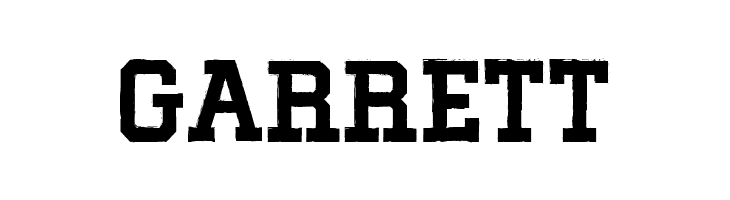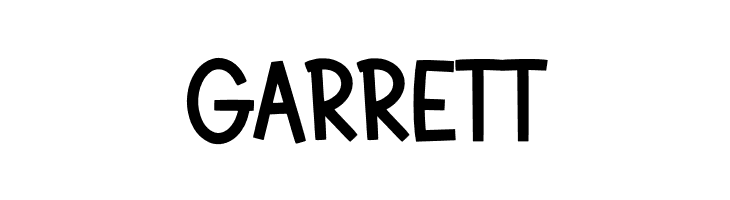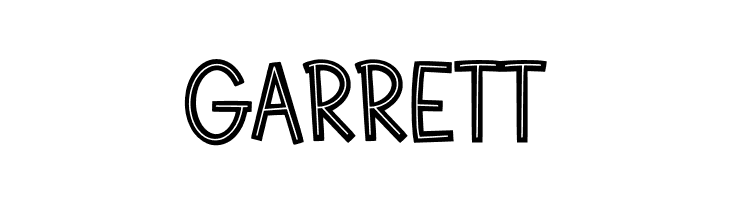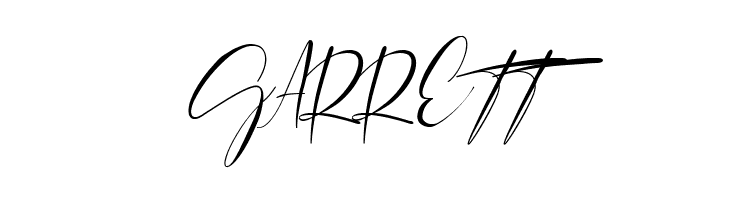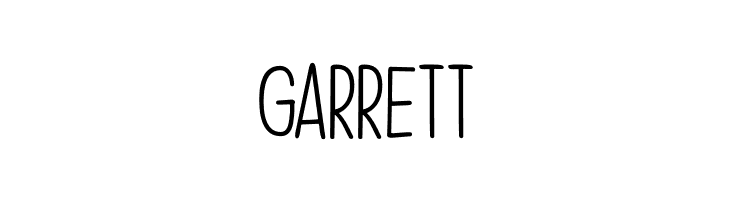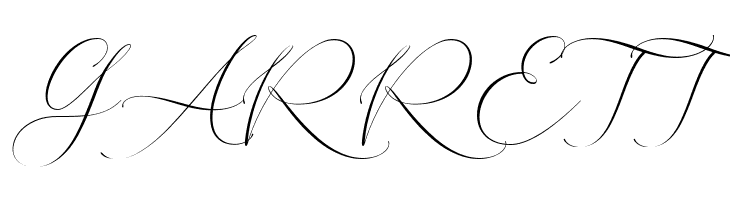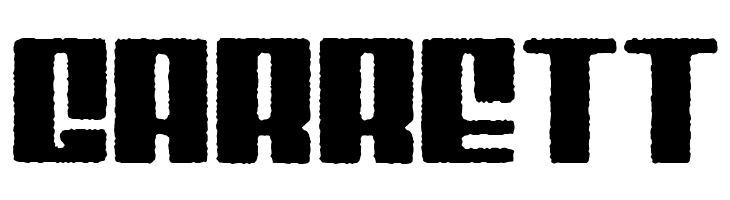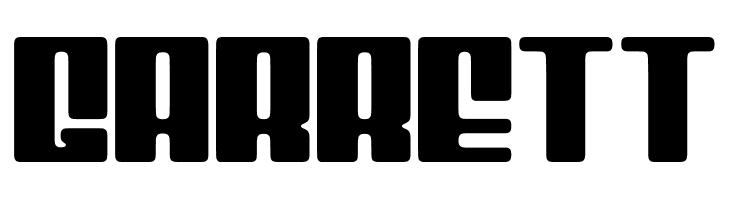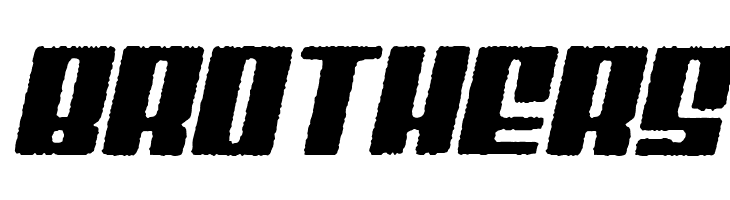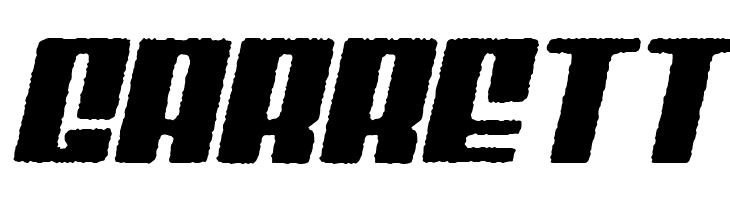
A bold, textured font with a rugged, handcrafted appearance.
A bold, rough, and italicized font with a dynamic and rugged appearance.
A bold, rounded font with a modern geometric style.
A bold, rounded, and italic font with a modern, dynamic style.
A bold, distressed font with a vintage, stamped appearance.
A bold, italicized font with a distressed, stamp-like texture.
A bold, hand-painted style font with a textured, artistic appearance.
A bold, outlined collegiate-style font with a strong, structured appearance.
A bold, distressed font with a vintage industrial style.
A bold, distressed font with a vintage, rugged style.
A bold, flame-themed decorative font with a strong, dramatic presence.
A bold, geometric font with a three-dimensional, industrial look.
A bold, geometric font with a modern and assertive style.
A geometric, monospaced font with thin lines and a modern aesthetic.
A bold, playful handwritten font with rounded, graffiti-like letterforms.
A bold, dynamic script font with angular uppercase and fluid lowercase letters.
A bold, angular script font with a dynamic and energetic style.
A bold, flowing script font with elegant cursive letterforms.
A playful, bold, handwritten font with a whimsical style.
A playful, outlined font with a hand-drawn, whimsical style.
A bold, decorative font with high contrast and playful detailing.
A fluid, elegant handwritten font with a consistent slant and smooth connections.
An elegant and sophisticated script font with flowing cursive letterforms.
A playful, whimsical font with tall, narrow letters and a hand-drawn aesthetic.
A bold, modern font with rounded edges and a tech-inspired design.
A whimsical, handwritten font with flowing, interconnected letters and delicate strokes.
A bold, high-contrast serif font with elegant and classic styling.
A bold, hand-drawn font with a playful, organic style.
A modern sans-serif font with a semi-bold weight, offering clarity and versatility.
A thin, modern font with clean lines and elegant simplicity.
A bold, dynamic font with playful curves and artistic flair.
A modern, elegant script font with a flowing, handwritten style.